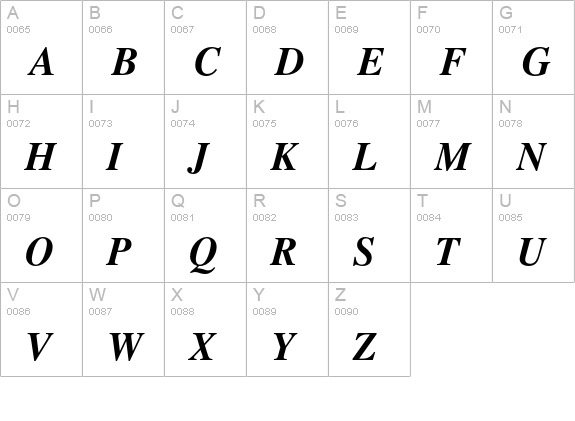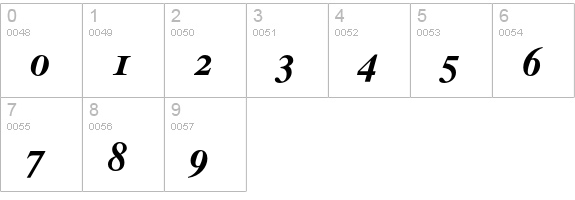
Times Bold Italic Old Style Figures is a strong, high-contrast, italic variant in the Times typeface family \xE2\x80\x94 well suited to headlines, attention-grabbing titles, and strong calls-to-action.
Introducing the exquisite Times Bold Italic Old Style Figures font, a timeless blend of elegance and versatility. This font effortlessly captures the essence of classic typography, with its bold yet graceful curves and meticulously crafted details. Designed with utmost precision, every letter of the Times Bold Italic Old Style Figures font exudes a sense of sophistication and refinement. Its balanced strokes and harmonious proportions make it an ideal choice for both print and digital mediums, ensuring a seamless reading experience for any project. One of the standout features of this font is its beautiful old style figures. These numerals effortlessly blend with the rest of the characters, adding a touch of vintage charm to any design. Whether you're creating a captivating headline or crafting an eye-catching poster, the Times Bold Italic Old Style Figures font will elevate your work to new heights. But what makes this font even more special is that it is free! Yes, you read that right. The Times Bold Italic Old Style Figures font is freely available to download at FontsMarket.com. This means that you can enhance your creative endeavors without any cost, allowing you to fully explore the endless possibilities this font offers. So why wait? Download the Times Bold Italic Old Style Figures font today and unlock a world of typographic excellence. Whether you're a designer, a writer, or simply someone who appreciates the beauty of typography, this font will undoubtedly become an invaluable addition to your collection. Elevate your designs, captivate your audience, and make a lasting impression with the striking Times Bold Italic Old Style Figures font.